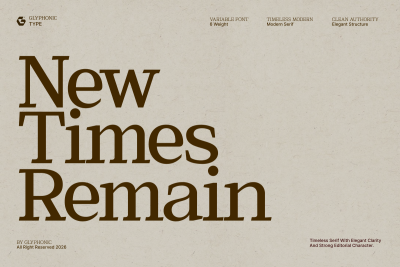
GC New Times Remain - Timeless Serif Font
GC New Times Remain - Timeless Serif is a thoughtfully constructed typeface that performs equally well in display and body text settings.